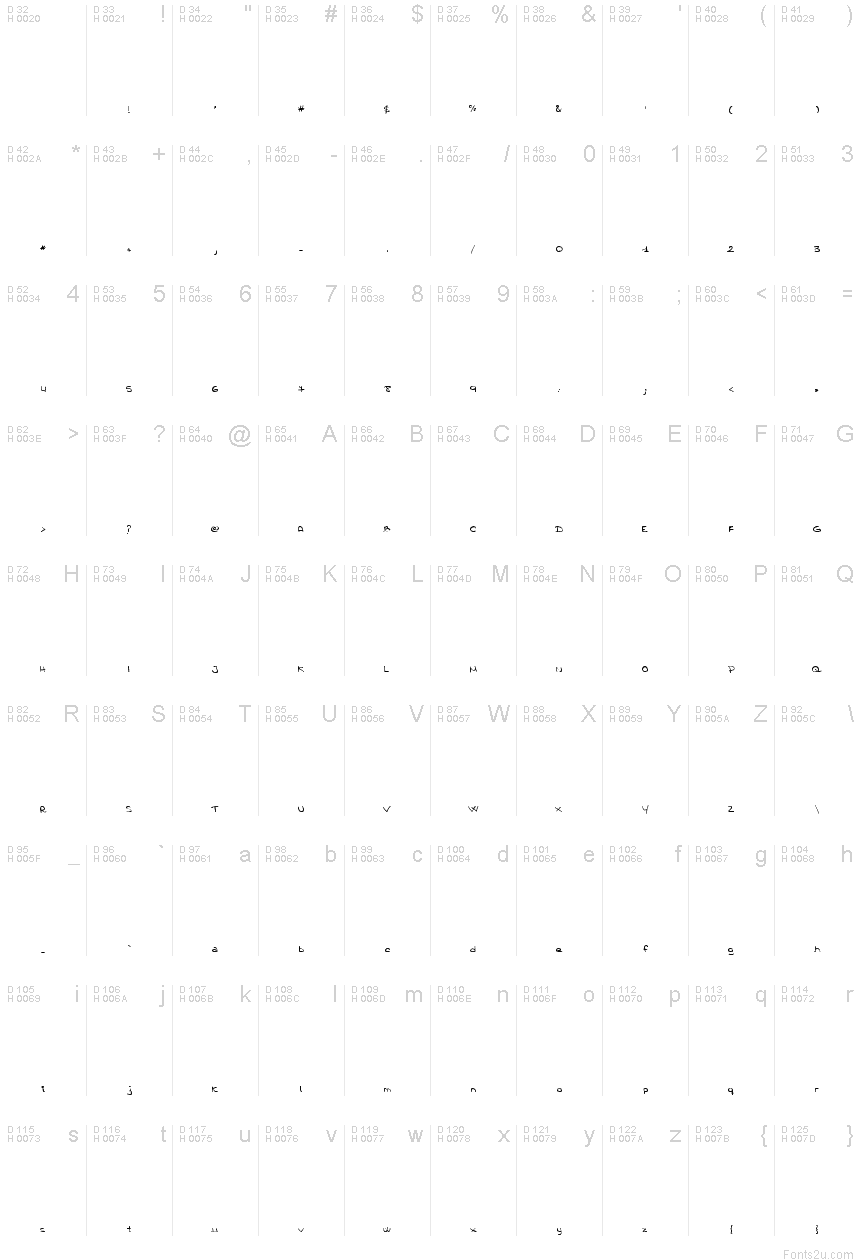
Anmari
Anmari font is a free handwritten typeface with the loose, inky charm of a quick note on the corner of a sketchbook. The letters wobble gently with uneven strokes and rounded bends, giving text a warm, slightly messy energy that feels personal rather than polished. It has the spontaneity of marker on paper, so your words look alive instead of mechanically produced.
Using Anmari, you can add character to kids’ book covers, birthday invitations, handmade product labels, playful logos, social media posts, and casual quote graphics. This free font shines when it’s set a bit larger, letting the quirky line quality breathe. Pair it with a simple sans-serif for body text to keep layouts readable while Anmari brings all the personality to headings and standout phrases.